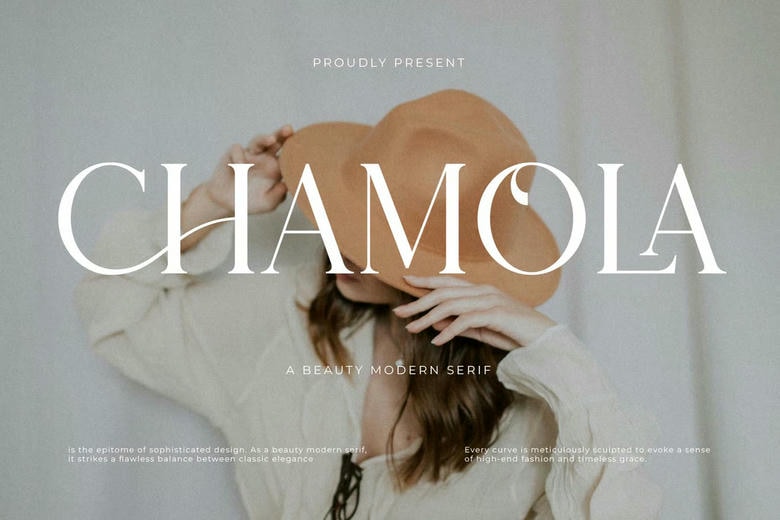
Chamola Font
Chamola is a modern serif font with a clean, elegant look. It brings a sense of luxury and style to websites, logos, brand identities, social media quotes, wedding stationery, magazines, and other projects.
Chamola features unique, elegant capital letters, plus special alternates and ligatures. These options make it easy to customize the font for different projects.
Chamola is a great choice for logos, branding, wedding invitations, business cards, greeting cards, posters, magazines, social media, diary prints, and websites.
Chamola Serif Font